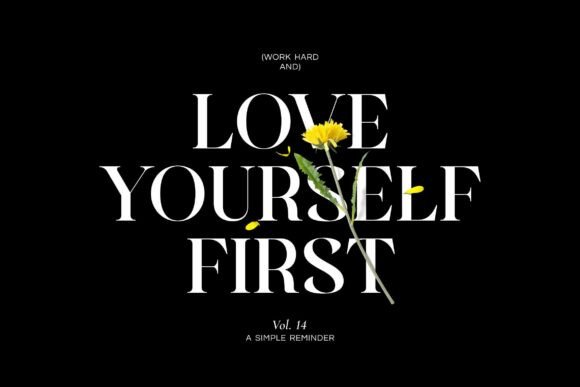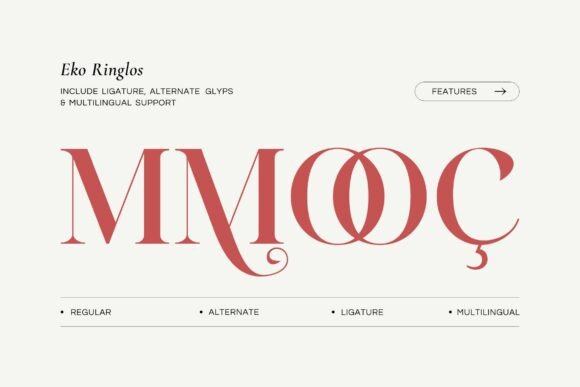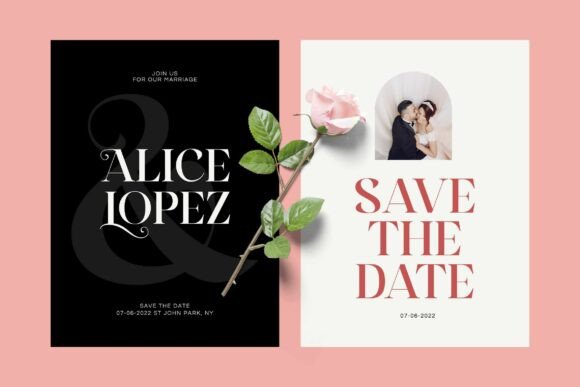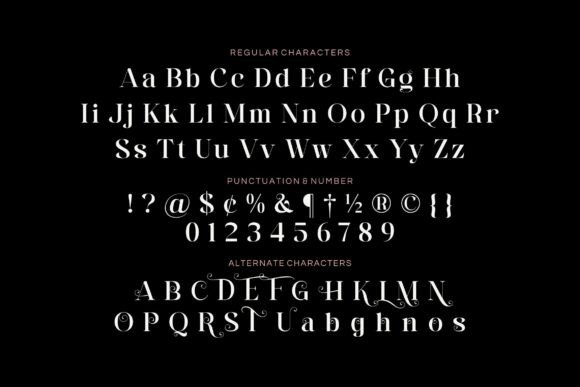
Introducing Eko Ringlos: The Elegant Serif Display Font for Modern Classics
In the world of typography, few fonts manage to strike a balance between classic elegance and modern sophistication. Eko Ringlos, a beautiful serif display font, is one such rare gem that seamlessly merges the timeless charm of traditional typography with the sleekness of modern design. Crafted with meticulous attention to detail, Eko Ringlos is perfect for designers and crafters looking to infuse their projects with a touch of refined luxury.
A Masterful Blend of Classic and Modern Elements
Eko Ringlos is characterized by its sharp serifs, graceful curves, and decorative swashes, which together create a font that is both visually striking and versatile. Each letter is carefully designed to exude a sense of classic grace, while its modern undertones ensure it remains fresh and relevant. This blend of old and new makes Eko Ringlos an exceptional choice for a wide range of design applications, from high-end branding and editorial spreads to wedding invitations and product packaging.
One of the standout features of Eko Ringlos is its incredible versatility. This font adapts effortlessly to various design contexts, making it an invaluable asset for designers. Whether you’re aiming for the minimalist chic of a luxury brand’s lookbook, the romantic allure of a wedding invitation, or the sophisticated touch of a premium product’s packaging, Eko Ringlos rises to the occasion. Its ability to convey elegance and refinement in any setting makes it a go-to font for those seeking to create distinguished designs.
Elevate Your Designs with Eko Ringlos
Eko Ringlos doesn’t just complement your designs; it elevates them. In editorial spreads, it adds a layer of sophistication and glamour, making every page turn a delight. For product packaging and premium branding, Eko Ringlos brings a sense of luxury and exclusivity, capable of transforming even the most mundane items into coveted products. Moreover, its expressive nature allows simple quotes and phrases to be turned into works of art, perfect for inspiring designers and captivating audiences.
Perfect for Designers Seeking Functionality and Expression
For designers, the quest for a font that is both functional and expressive is never-ending. Eko Ringlos meets this demand with flying colors. Its sharp serifs and decorative swashes not only add a touch of elegance to any project but also offer a wide range of creative possibilities. Whether you’re working on a high-profile branding campaign, a fashion lookbook, or a wedding invitation suite, Eko Ringlos provides the perfect blend of form and function, enabling you to create designs that are not only beautiful but also deeply engaging.
Why Choose Eko Ringlos?
- Timeless Aesthetic: Eko Ringlos boasts a classic yet modern design that never goes out of style.
- Versatility: Suitable for a wide range of design projects, from editorial and packaging to branding and invitations.
- Elegance and Sophistication: Adds a touch of luxury and refinement to any design.
- Expressive: Offers a range of creative possibilities with its decorative swashes and sharp serifs.
- Functional: Easy to read and versatile, making it perfect for both display and body text.
Eko Ringlos is more than just a font; it’s a design statement. Its unique blend of classic elegance and modern sophistication makes it an indispensable tool for designers and crafters aiming to create distinguished, high-end designs. With Eko Ringlos, the possibilities are endless. Whether you’re looking to add a touch of luxury to your branding, create stunning editorial spreads, or design beautiful wedding invitations, Eko Ringlos is your key to unlocking a world of creative potential. Embrace the elegance and versatility of Eko Ringlos and elevate your designs to new heights of sophistication and style.